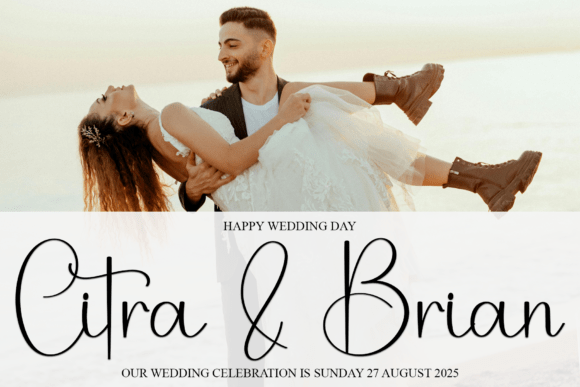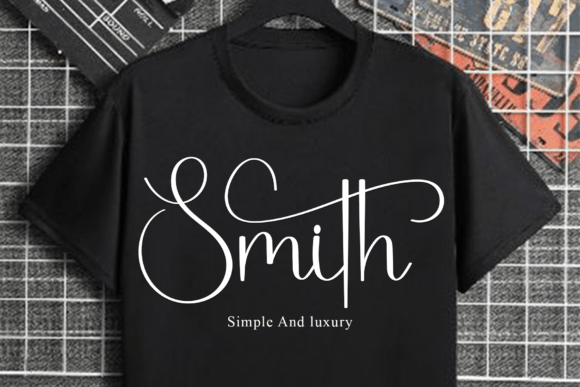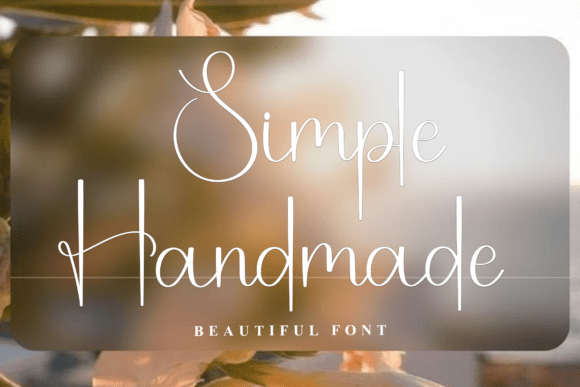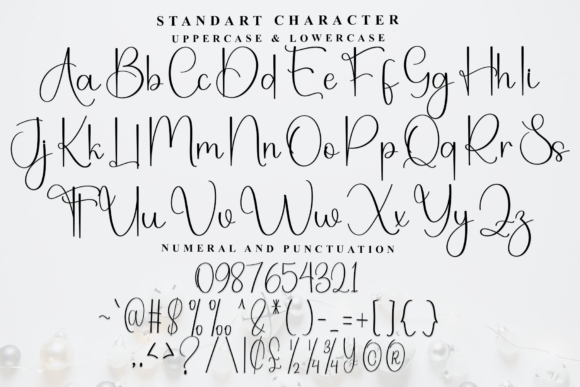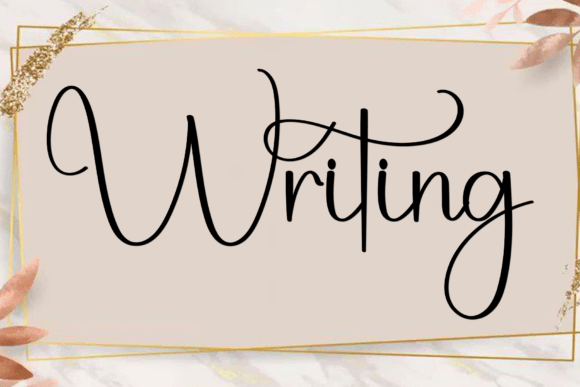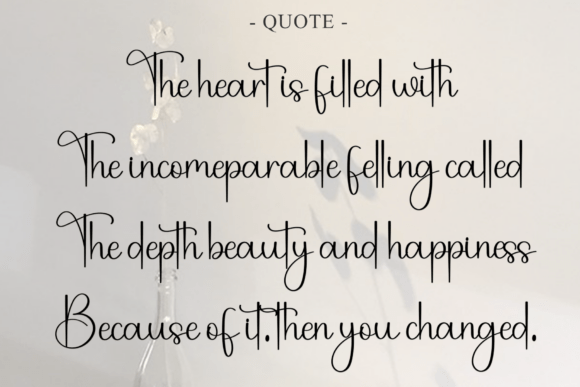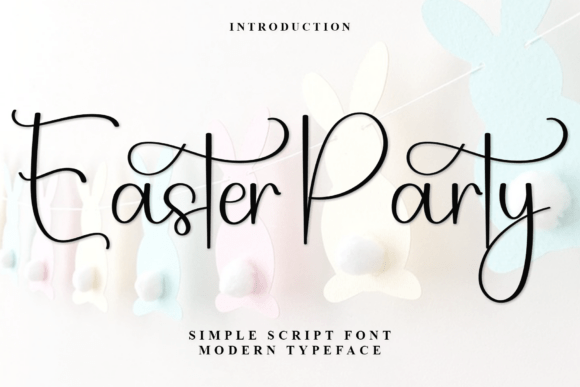
Easter Party Font: Elevate Your Designs with Elegance and Charm
Are you looking for a font that adds a touch of sophistication and whimsy to your designs? Look no further than the Easter Party Font, a stylish handwritten script font that exudes elegance and charm. With its fluid, graceful strokes, this font is perfect for designers and crafters who want to create beautiful and refined designs for branding, invitations, and stationery.
The Characteristics of Easter Party Font
Easter Party Font is a handwritten script font that boasts smooth curves and a natural flow, creating a timeless and refined look for any design. Its fluid strokes and elegant letterforms make it perfect for a variety of design applications, from luxury branding to wedding invitations and stationery. The font’s refined aesthetic adds a personal and sophisticated touch to any project, making it a versatile choice for designers and crafters.
Perfect for Branding, Invitations, and Stationery
Easter Party Font is an excellent choice for designers and crafters who want to create beautiful and effective designs for branding, invitations, and stationery. Its elegant and refined aesthetic makes it perfect for:
• Branding: Use Easter Party Font to create a luxurious and sophisticated brand identity that sets your business apart from the competition.
• Invitations: Add a touch of elegance and whimsy to your wedding invitations, birthday party invitations, and other special event invitations with Easter Party Font.
• Stationery: Create beautiful and refined stationery, including letterheads, greeting cards, and gift tags, with Easter Party Font.
Why Choose Easter Party Font?
There are many reasons why designers and crafters choose Easter Party Font for their designs. Here are just a few:
• Elegant and Refined Aesthetic: Easter Party Font boasts a sophisticated and refined aesthetic that adds a touch of elegance to any design.
• Versatile: This font is perfect for a variety of design applications, from branding to invitations and stationery.
• Easy to Read: Easter Party Font is easy to read, making it perfect for designs that require a clear and concise message.
• Unique: Easter Party Font is a unique and stylish font that sets your designs apart from the competition.
Tips for Using Easter Party Font
Here are a few tips for using Easter Party Font in your designs:
• Pair with Other Fonts: Pair Easter Party Font with other fonts to create a unique and stylish design.
• Use in Large and Small Sizes: Easter Party Font looks great in both large and small sizes, making it perfect for a variety of design applications.
• Experiment with Colors: Experiment with different colors to find the perfect combination for your design.
Easter Party Font is a stylish and elegant handwritten script font that is perfect for designers and crafters who want to add a touch of sophistication and whimsy to their designs. With its fluid, graceful strokes and refined aesthetic, this font is perfect for branding, invitations, and stationery. Whether you’re creating a luxury brand identity or a beautiful wedding invitation, Easter Party Font is a versatile and stylish choice that is sure to impress.